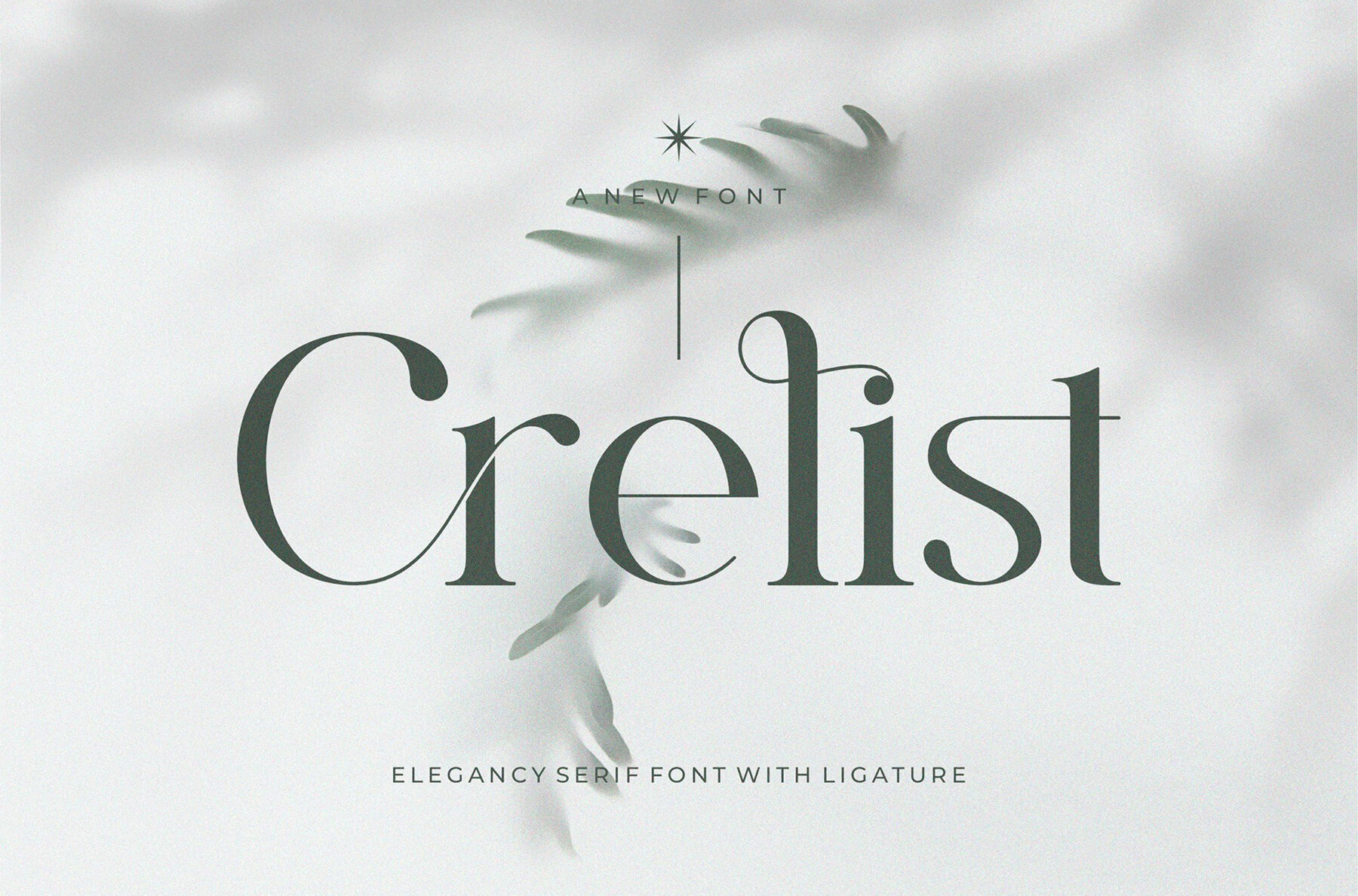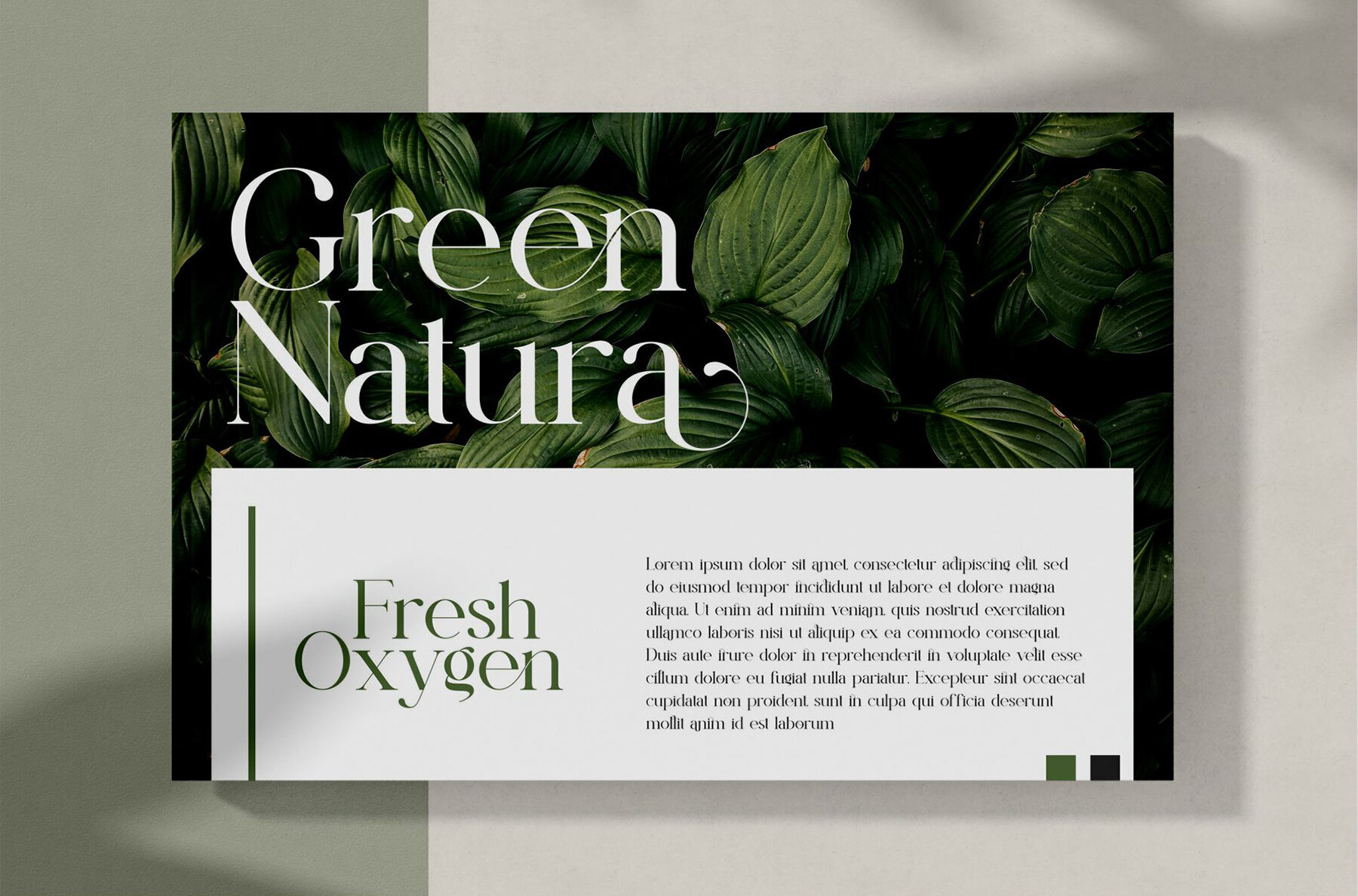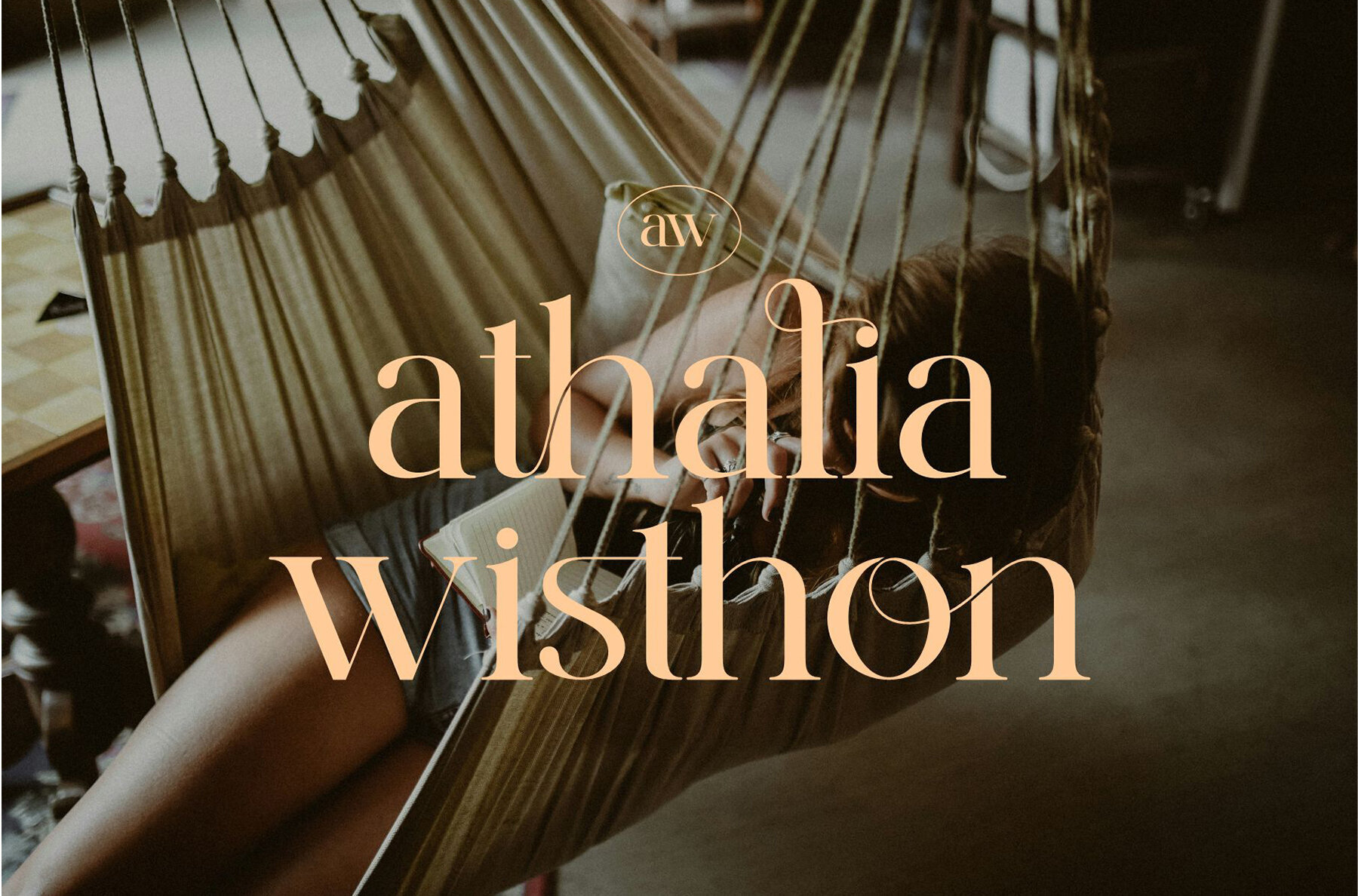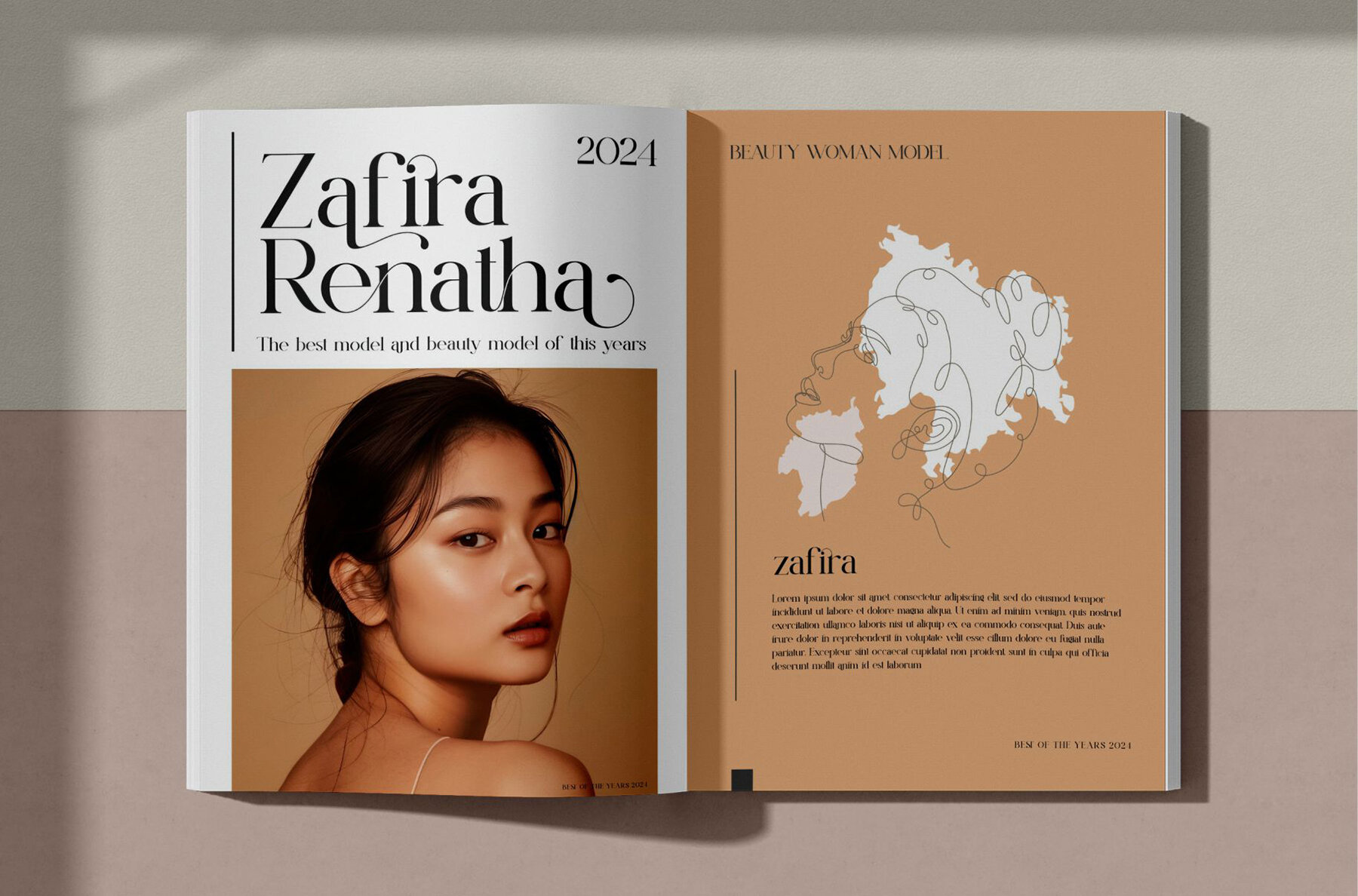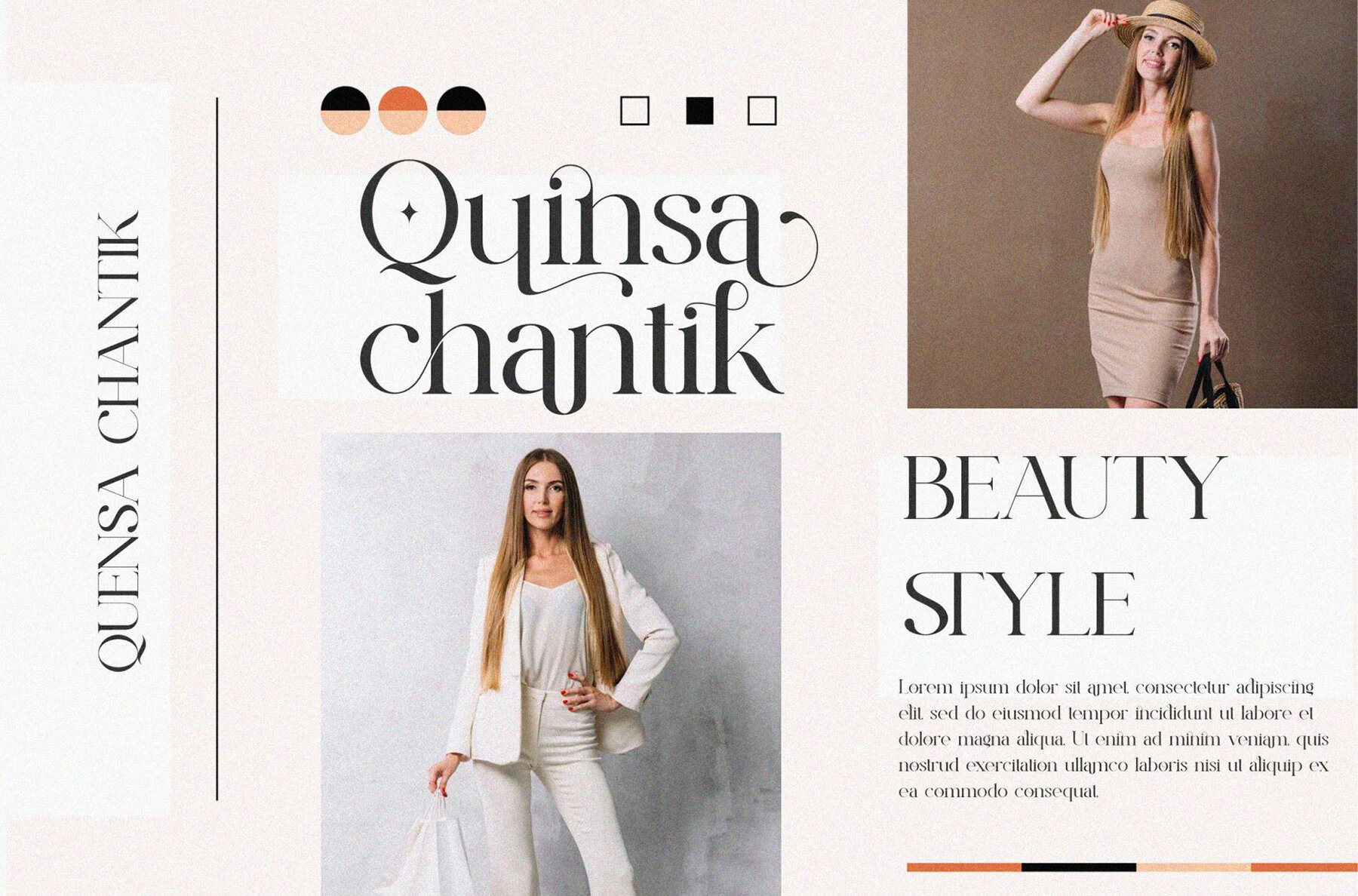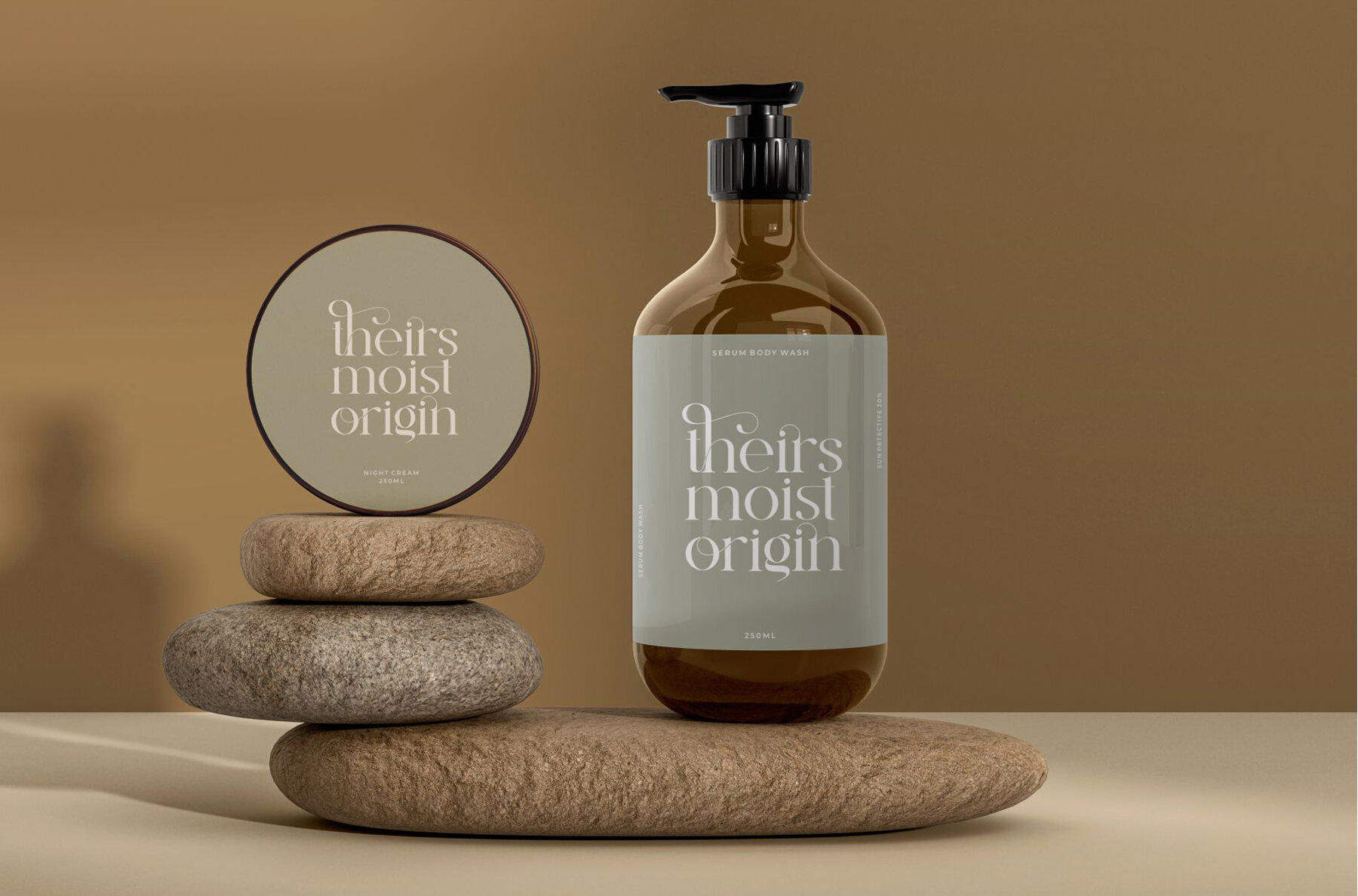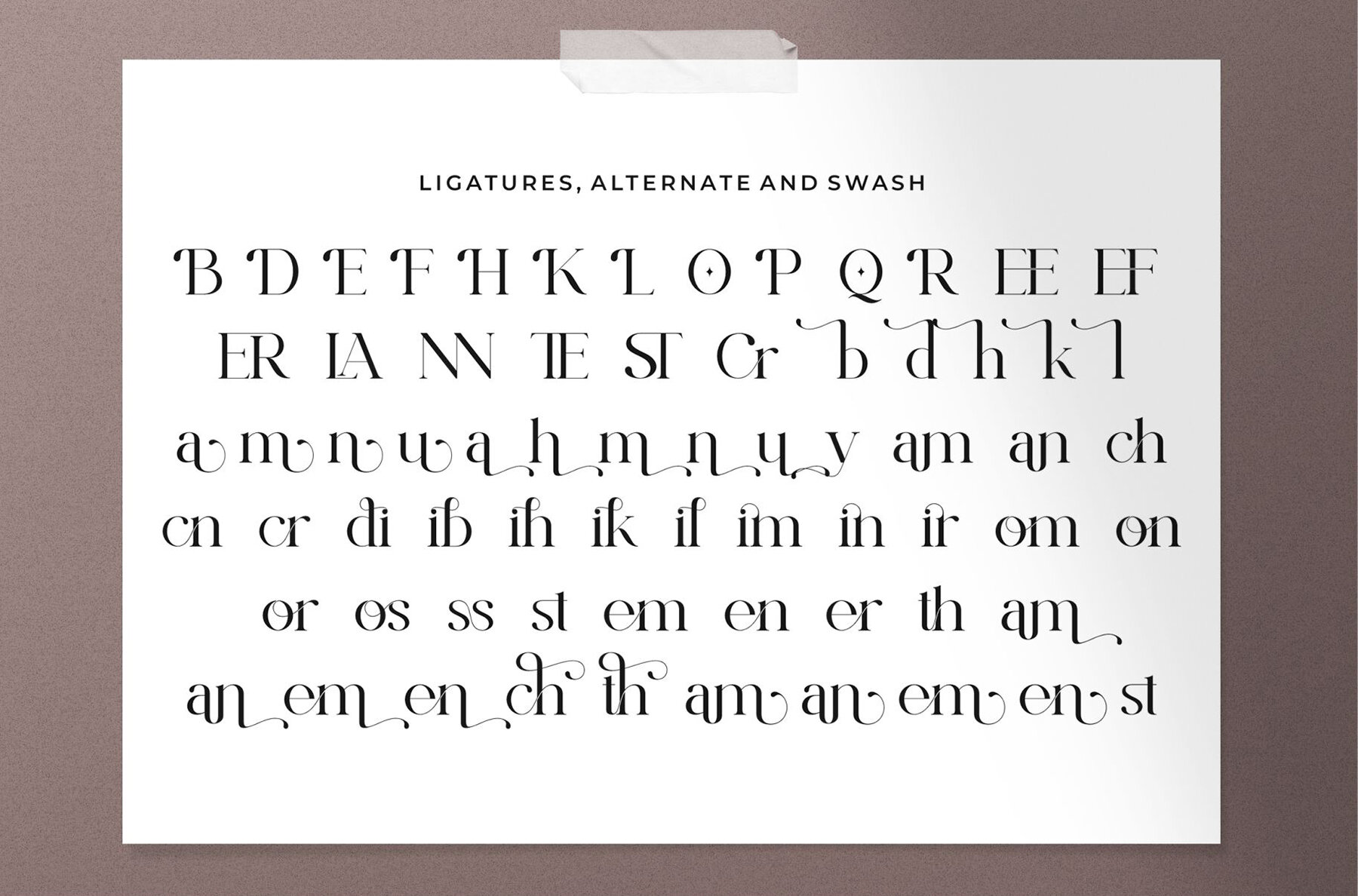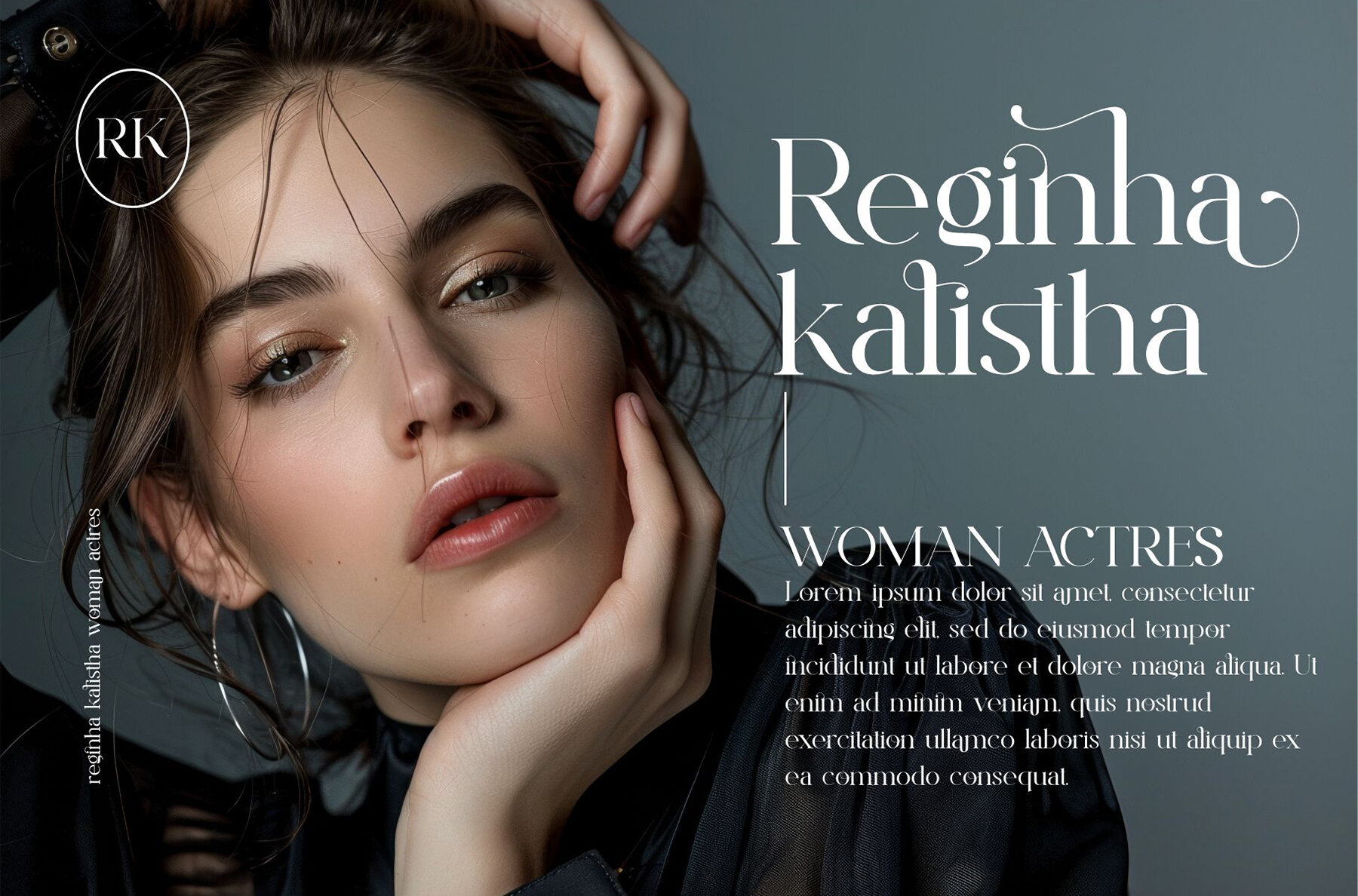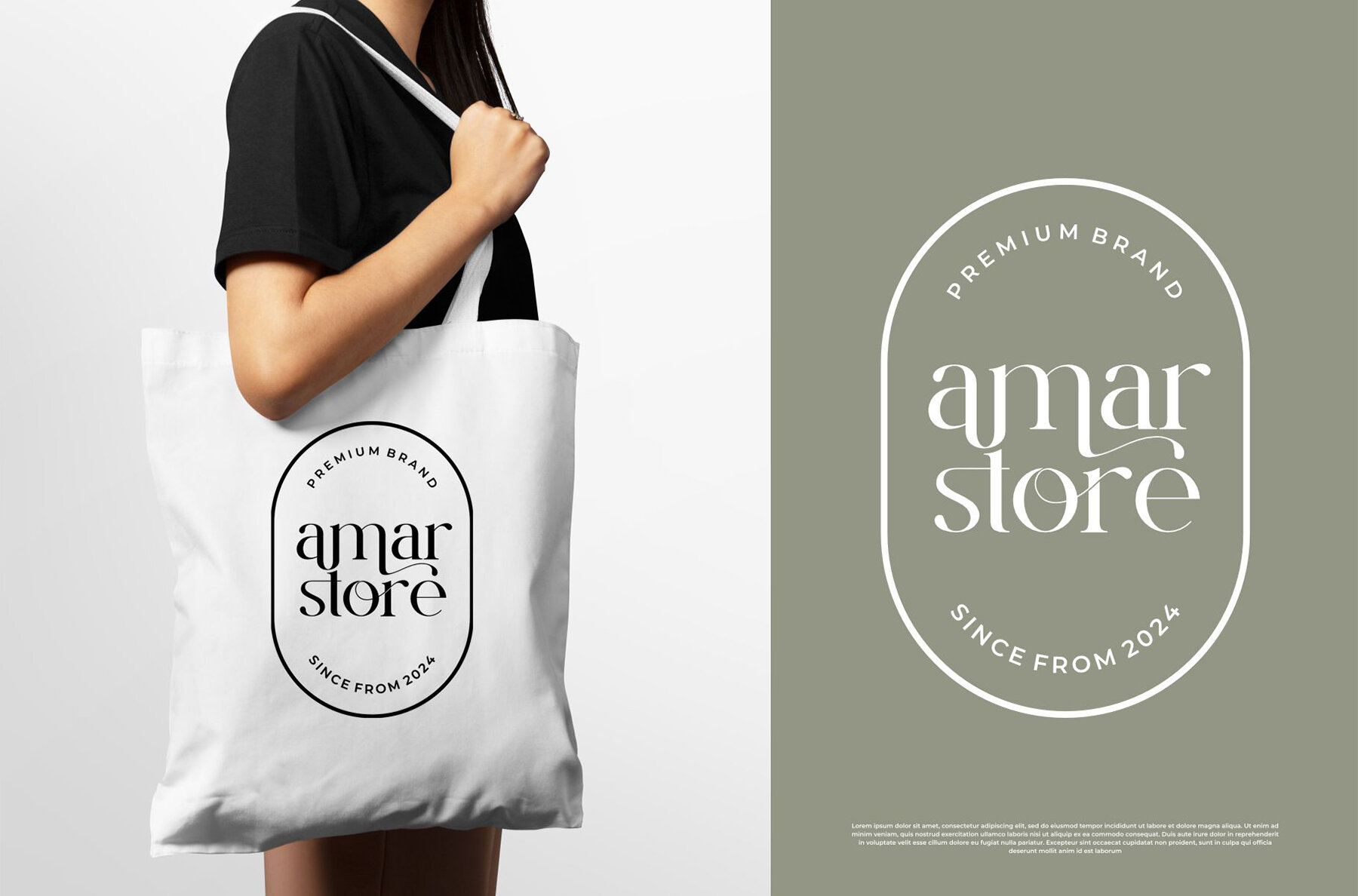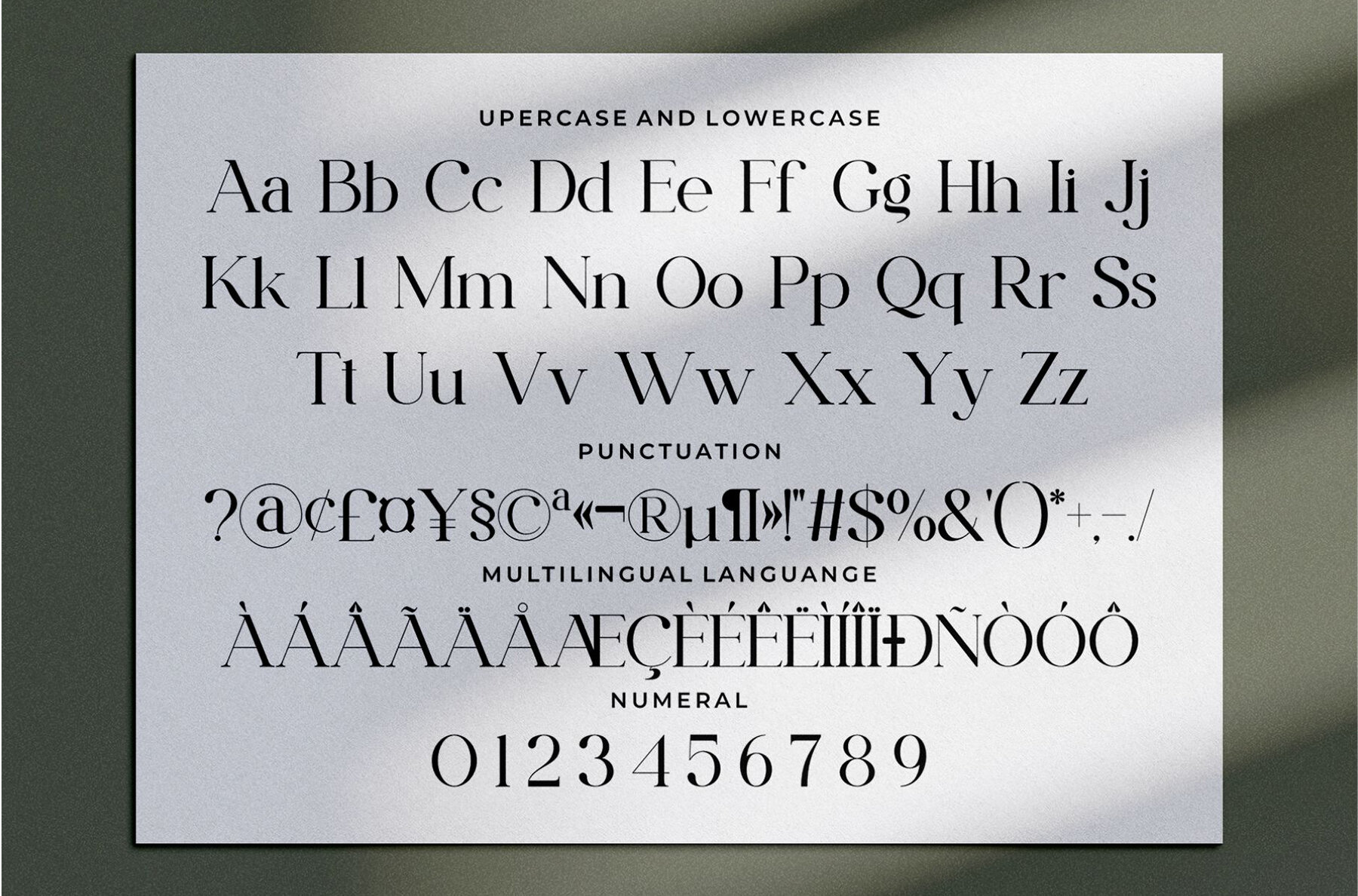
Crelist Font
Crelist Regular
Crelist Serif is a refined serif font that combines balance and elegance, offering a stylish solution for a diverse range of design projects. Its smooth and sophisticated character makes it ideal for creating invitation cards, company logos, movie titles, business cards, book titles, and brand names.
The font features stylish alterations and ligatures that add a touch of sophistication, ensuring your designs stand out with class and elegance. Crelist Serif is perfect for designers seeking a font that seamlessly integrates with creative projects, lending an air of sophistication to any visual presentation.